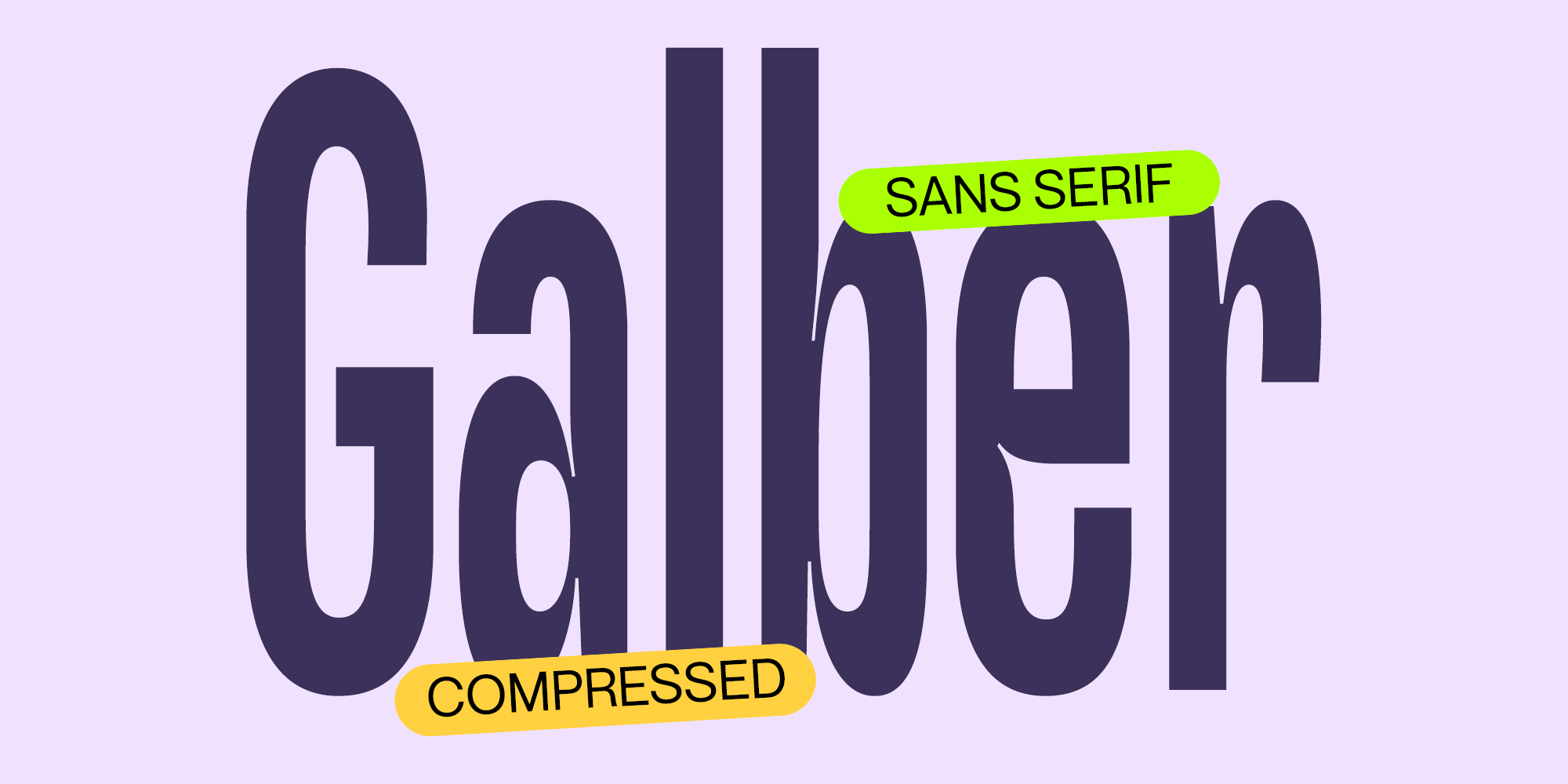
Galber Font is ideal for modern tech branding, startup logos, digital agency websites, contemporary magazine layouts, minimalist poster designs, architectural firm identities, creative portfolio headers, urban fashion labels, innovative product packaging, and sleek corporate presentations. This cutting-edge typeface delivers contemporary sophistication for forward-thinking design projects and progressive brand identities.
What makes Galber Font exciting is its perfect fusion of geometric precision and modern innovation that creates a distinctive visual language for contemporary communication. The font features clean, architectural letterforms with subtle geometric refinements that suggest technological advancement and design sophistication. Its progressive character construction reflects current design trends while maintaining timeless appeal, making it ideal for brands seeking to convey innovation, reliability, and forward-thinking vision in today's competitive marketplace.
The Galber Font family encompasses comprehensive weight variations including Thin, Light, Regular, Medium, Semibold, Bold, and Black options, complemented by corresponding Italic versions. Each style maintains the font's modern geometric foundation while providing extensive typographic flexibility for complex contemporary branding systems and multi-platform design applications.
Whether you're developing innovative tech identities, creating contemporary marketing campaigns, or designing modern editorial layouts, Galber Font Free Download provides the progressive typography needed for cutting-edge visual communication. This font seamlessly balances geometric precision with human warmth, making it an exceptional choice for projects requiring both technical credibility and approachable sophistication. Its meticulously engineered letterforms ensure outstanding performance across digital interfaces, high-resolution displays, and premium print applications where modern typography makes the critical difference in competitive markets.